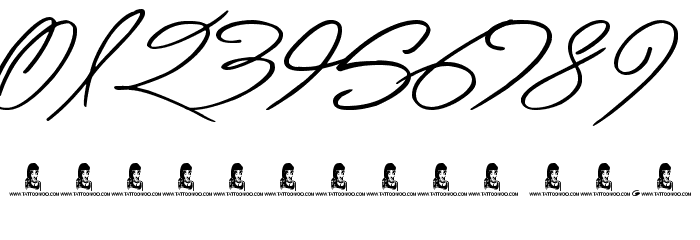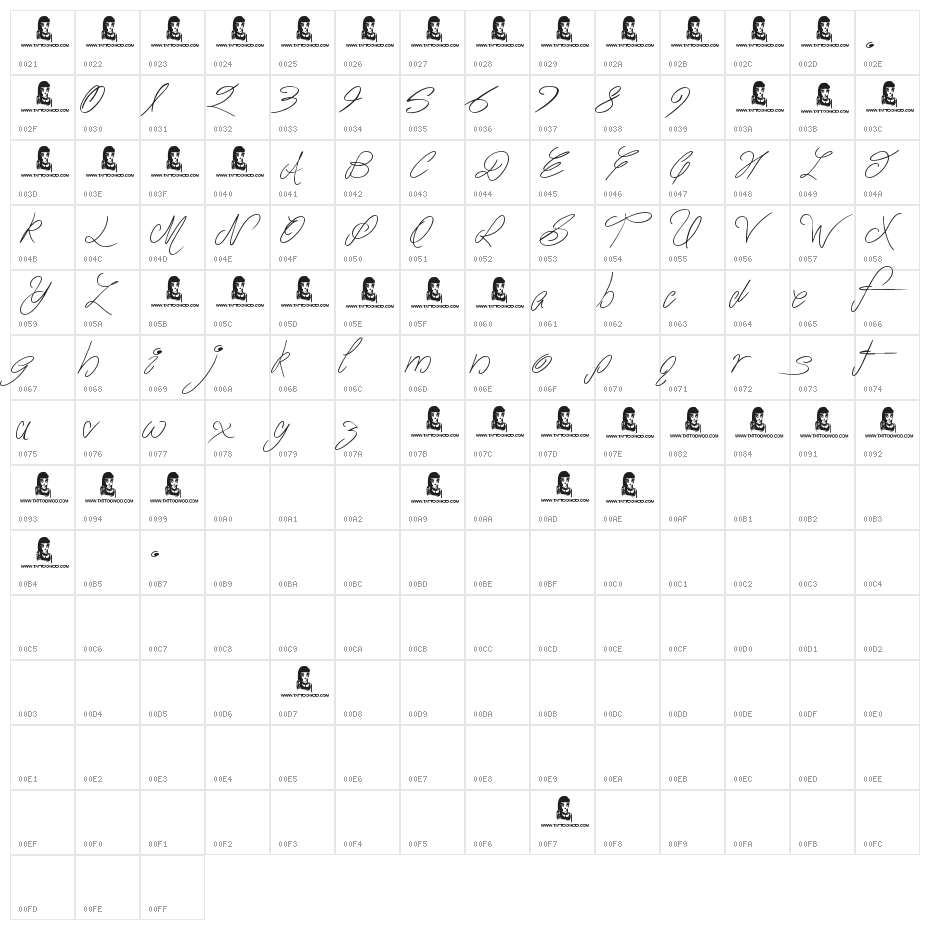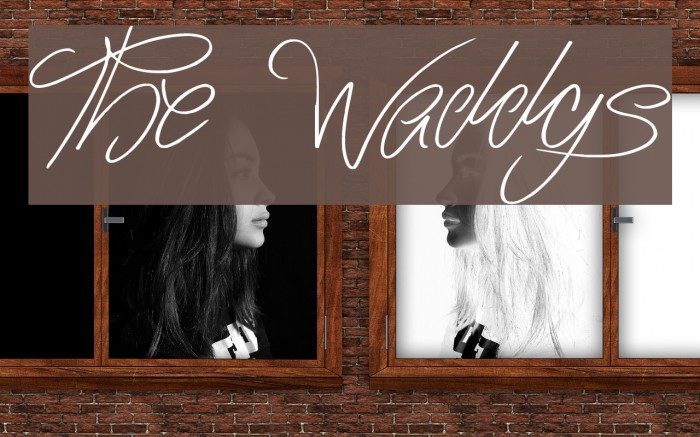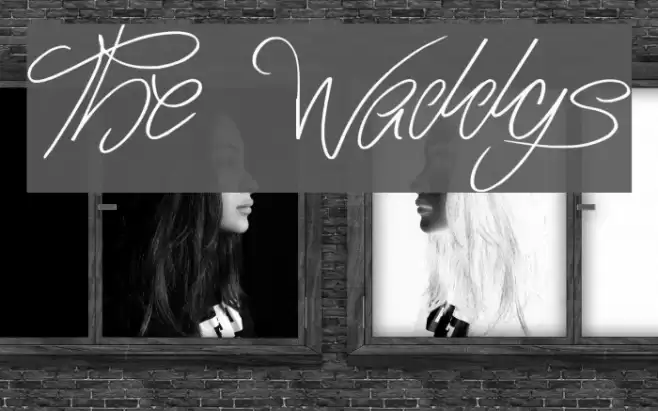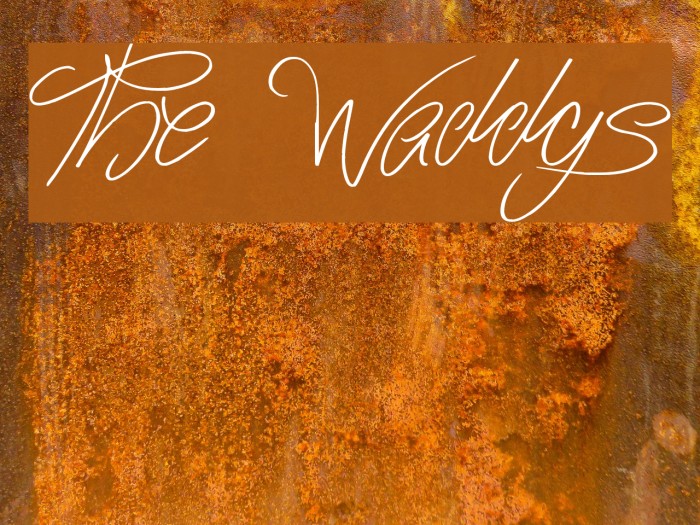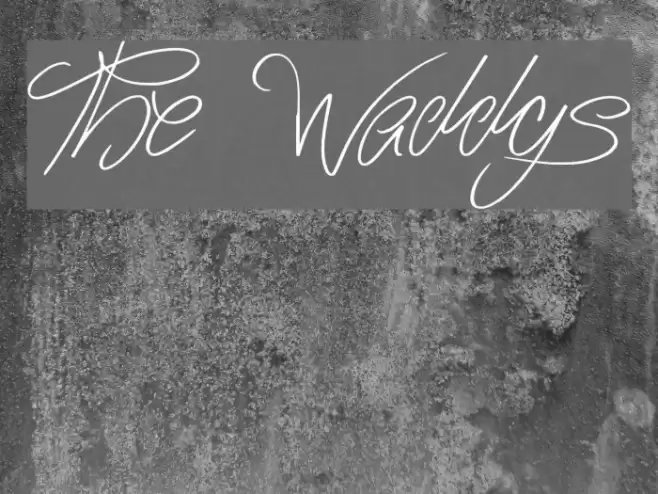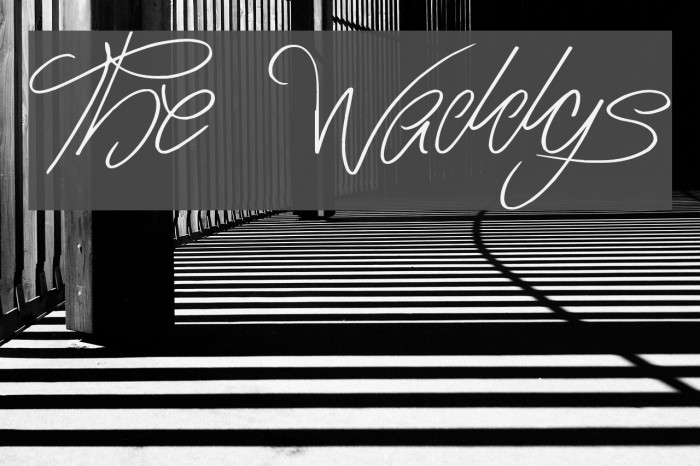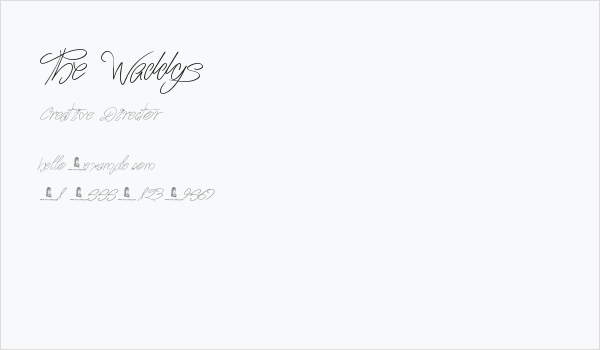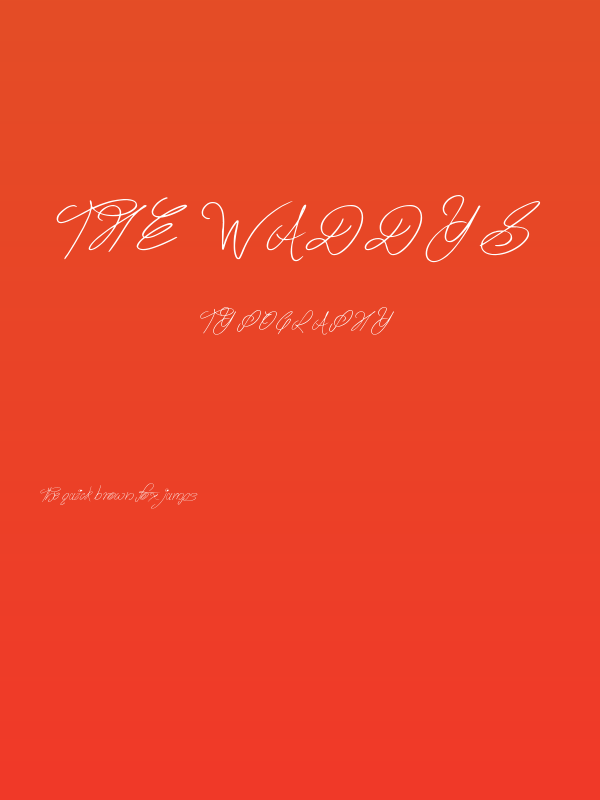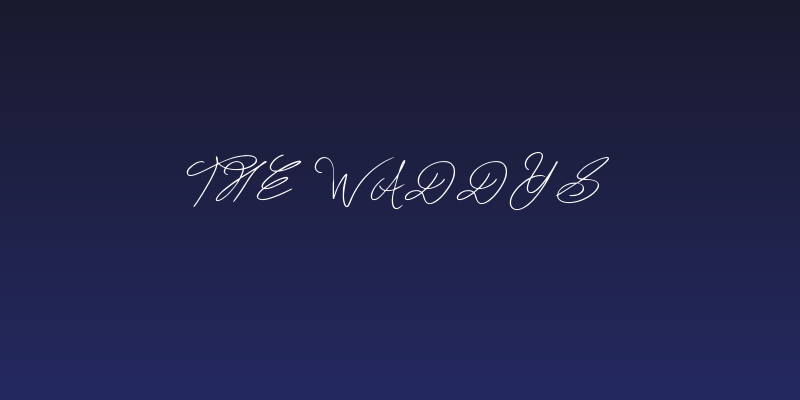
The Waddys Font
This font features an elegant and flowing script style, characterized by its cursive and interconnected letterforms. The strokes are smooth and fluid, with a slight slant that adds a sense of motion and grace. The uppercase letters are distinct and ornate, while the lowercase letters maintain a cohesive and harmonious appearance. The numerals are consistent with the overall style, offering a seamless integration with the alphabet. Special characters are thoughtfully designed to match the script's aesthetic, making it suitable for creative and decorative purposes.
| Overall Style | Elegant and Decorative |
| Use Case | Logos, Invitations, Decorative Text |
| Proposed Projects | Ideal for wedding invitations, greeting cards, branding, and elegant logo designs. |